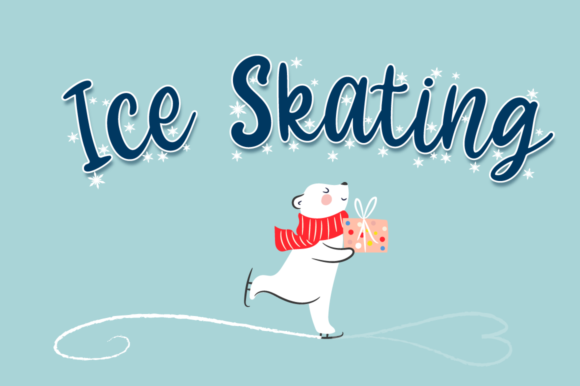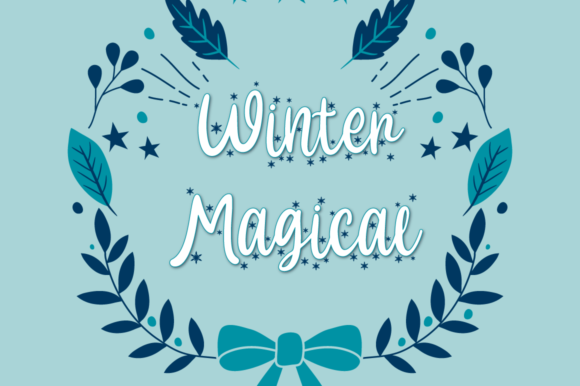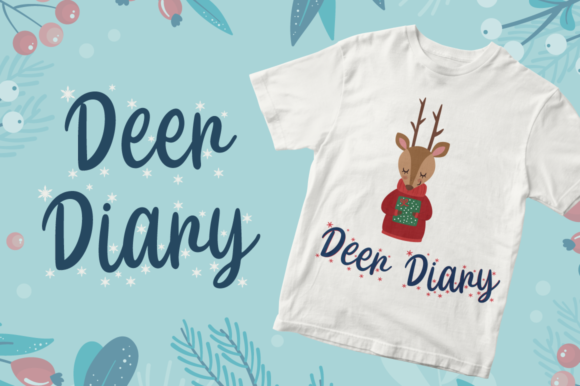
Introduction to Hallo White Font
Do you remember the feeling of excitement and wonder when you’re planning a special holiday project? The twinkling lights, the cozy atmosphere, and the perfect font to match the festive mood. If you’re looking for a design resource that captures the essence of winter wonderland, you’re in luck!
As a designer, you know how challenging it can be to find the perfect font for a creative project. But what if I told you that there’s a font that’s not only high-quality but also free to download? Say hello to the enchanting Hallos White Font, a romantic and festive handwritten font that features delicate snowflakes, perfect for creating lovely holiday designs.
With its transparent background and incredibly versatile style, Hallo White Font is a valuable addition to any designer’s toolkit. Whether you’re working on a Christmas card, a wedding invitation, or a social media post, this font is sure to add a touch of magic to your design.
Key Features of Hallo White Font
- High-quality design: Hallo White Font is a premium font designed for creative projects, offering a unique and elegant style.
- Transparent background: The font features a transparent background, allowing for easy customization and layering.
- Perfect for design projects: Hallo White Font is ideal for creative projects, including logos, typography, and branding materials.
- Unique characteristics: The font features a clean and minimalist design, with subtle rounded edges and a distinctive flair, making it stand out from other fonts.
Honest Review: Hallo White Font
I recently had the chance to work with the Hallo White Font, and I must say it’s been a game-changer for my creative projects. The font is free to download and offers a high quality design resource that’s perfect for a wide range of applications.
- ✨ The font’s transparent background makes it incredibly versatile and easy to use.
- ✨ The clean, modern design is perfect for creating a professional and sleek look.
- ✨ The font is highly customizable, making it easy to adjust to suit the needs of any project.
However, there are a few limitations to be aware of:
- ⚠️ The font may not be suitable for very small text sizes, as it can become difficult to read.
- ⚠️ Some users may find the font’s minimalist design too simple, lacking the flair of more ornate fonts.
Overall, I’m thoroughly impressed with the Hallo White Font. It’s a fantastic addition to any designer’s toolkit and has already helped elevate the look of several of my projects. Whether you’re working on a small design project or a large-scale creative endeavor, this font is definitely worth checking out.
Tips for Getting the Most Out of Hallo White Font
Use the Hallo White Font on a transparent background to create a clean and modern design.
Combine the font with other design elements, such as graphics and images, to create a visually appealing design.
Experiment with different font sizes and styles to add depth and interest to your design.
Common Use Cases for Hallo White Font
The Hallo White Font is ideal for use in creative projects, such as:
Graphic design
Branding and marketing materials
Web design
Print design